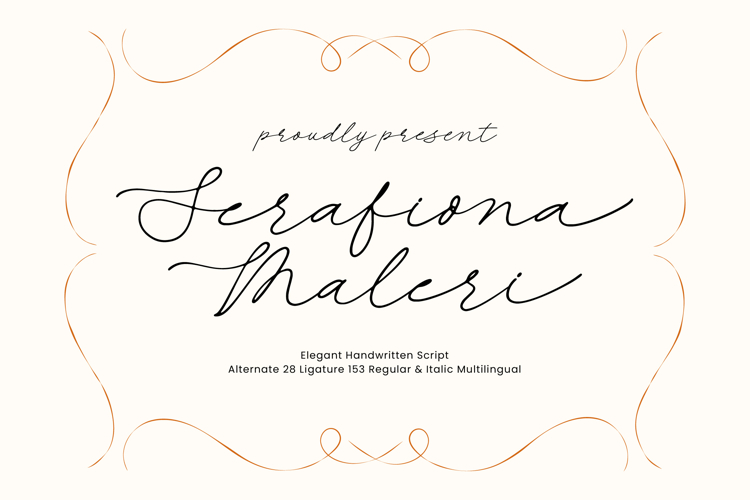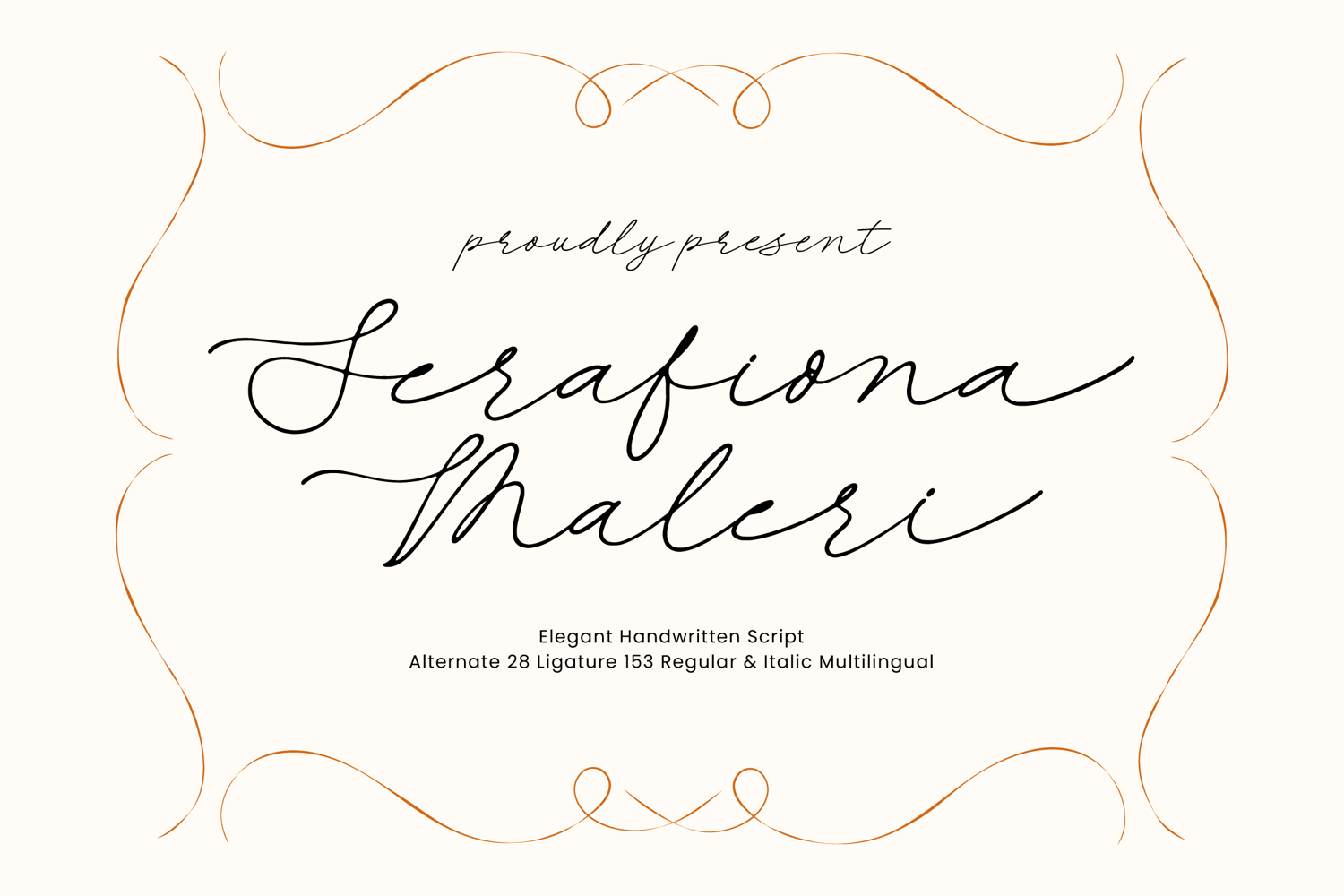
Serafiona Maleri - Elegant Handwritten Script
Elevate your design aesthetic with the fluid grace of Serafiona Maleri - Elegant Handwritten Script, a typeface designed to infuse every project with timeless sophistication and artistic flair. This monolinear script captures the essence of premium hand-lettering, offering a refined silhouette that feels both and professionally polished. Its delicate strokes and graceful curves create a rhythmic flow that is ideal for designers seeking to add a touch of exclusivity and feminine elegance to their creative portfolio.
Expand your creative horizons and reach a wider audience without sacrificing aesthetic consistency. With its extensive multilingual support, Serafiona Maleri - Elegant Handwritten Script adapts seamlessly across global markets, making it incredibly versatile for international projects. This global compatibility ensures that your brand message remains cohesive and visually striking across various territories, providing a reliable solution for modern, worldwide communication and luxury marketing.